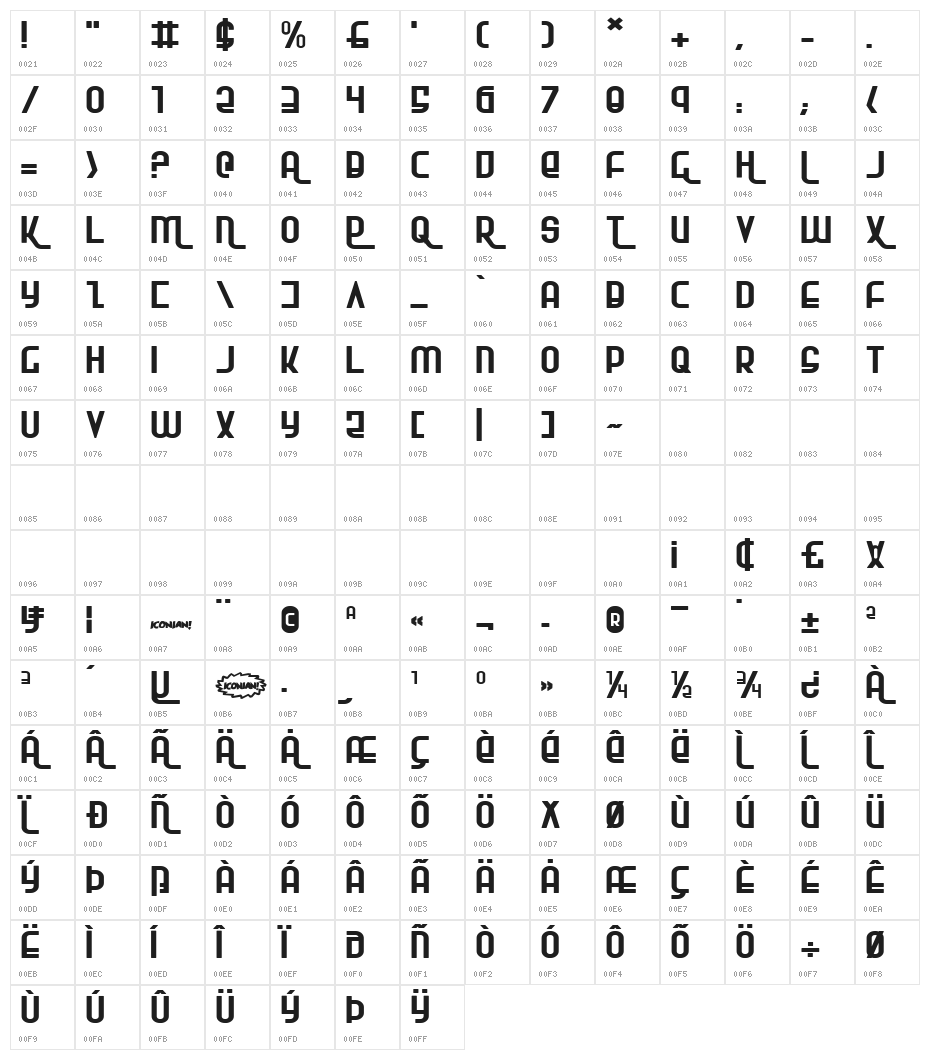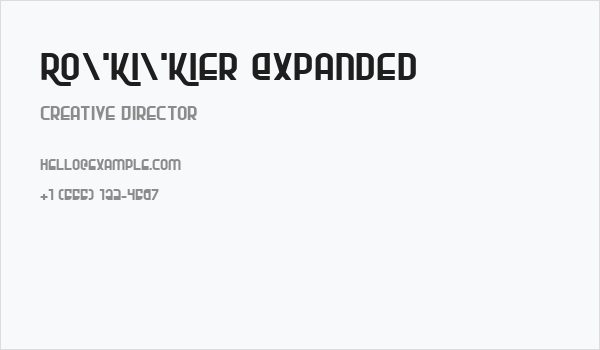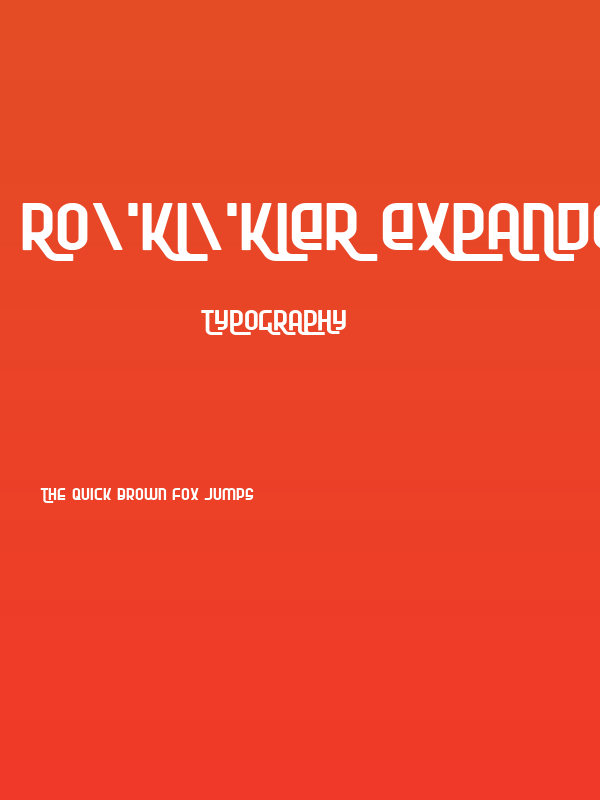
Ro'Ki'Kier Expanded Font
Ro'Ki'Kier Expanded Description
This font features a bold, geometric design with a modern and futuristic aesthetic. The characters are constructed with clean, straight lines and sharp angles, giving them a structured and mechanical appearance. The uppercase and lowercase letters maintain a consistent height, contributing to a uniform look. The numbers and special characters follow the same design principles, ensuring cohesion across all elements. The font's expanded width allows for excellent readability, making it suitable for various applications where clarity is essential. Its unique style is both eye-catching and versatile, ideal for projects that require a contemporary and innovative touch.
| Proposed Projects | Ideal for technology branding, futuristic posters, video game titles, and digital interfaces. |